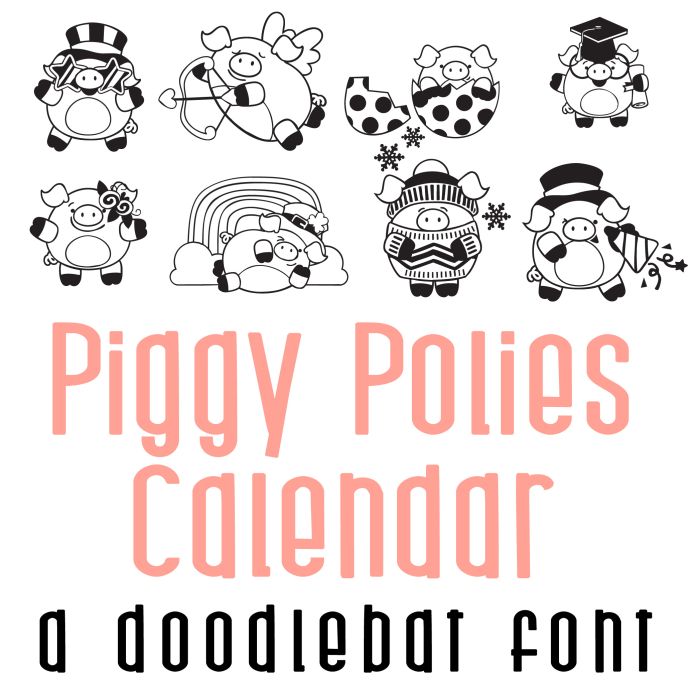
This adorable doodlebat font features 26 piggies throughout the calendar year. Perfect for cards, crafts, decor, classrooms, planner stickers, scrapbook pages, parties and more!